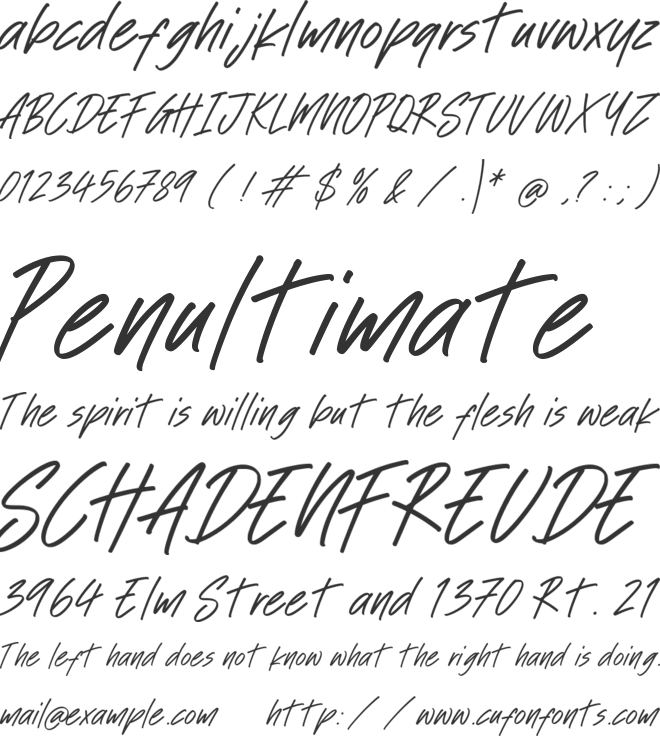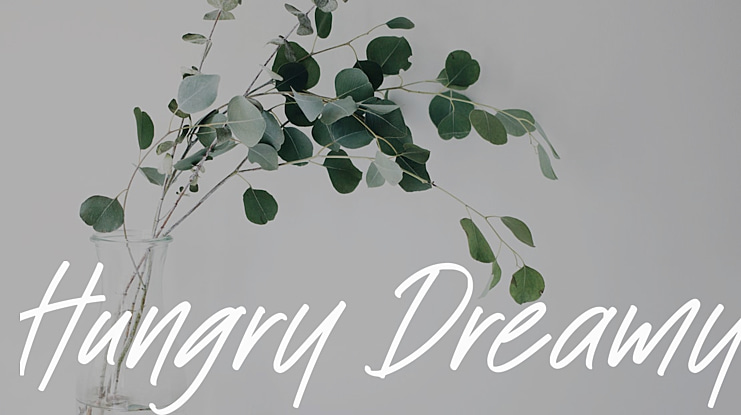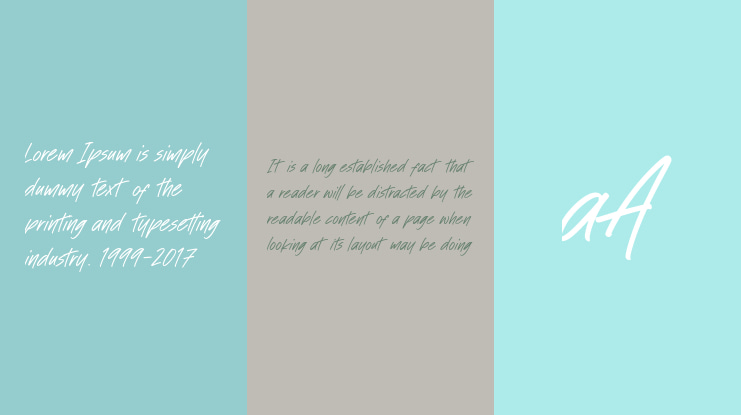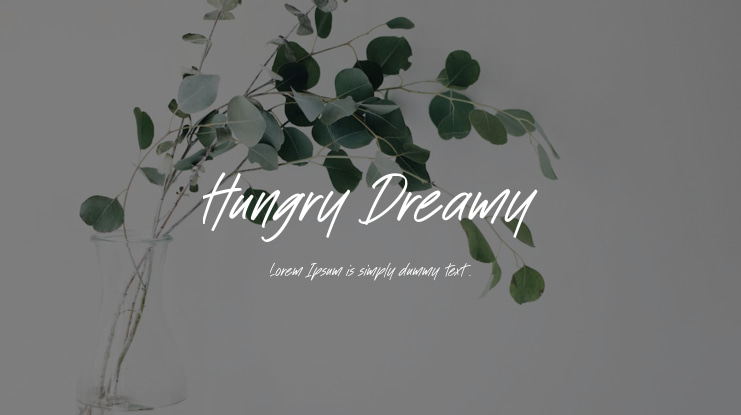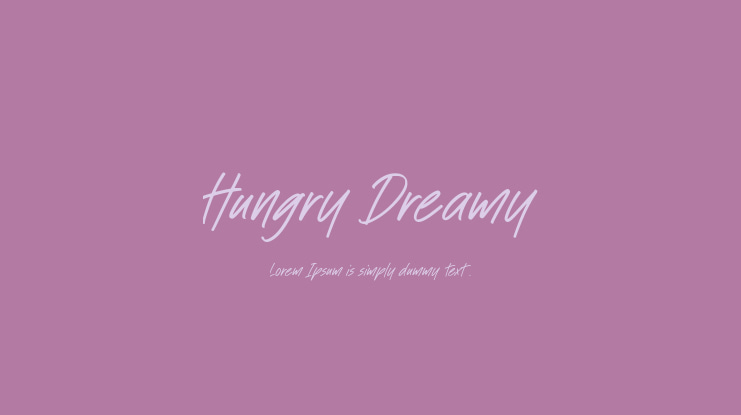
Hungry Dreamy Font
Presenting Hungry Dreamy, a delightful Handwritten Font.
Whether you're engaged in crafts, digital design, presentations, or creating greeting cards, this font has the ability to become your ultimate go-to font for any occasion!
Our font features include:
• Support for multiple languages